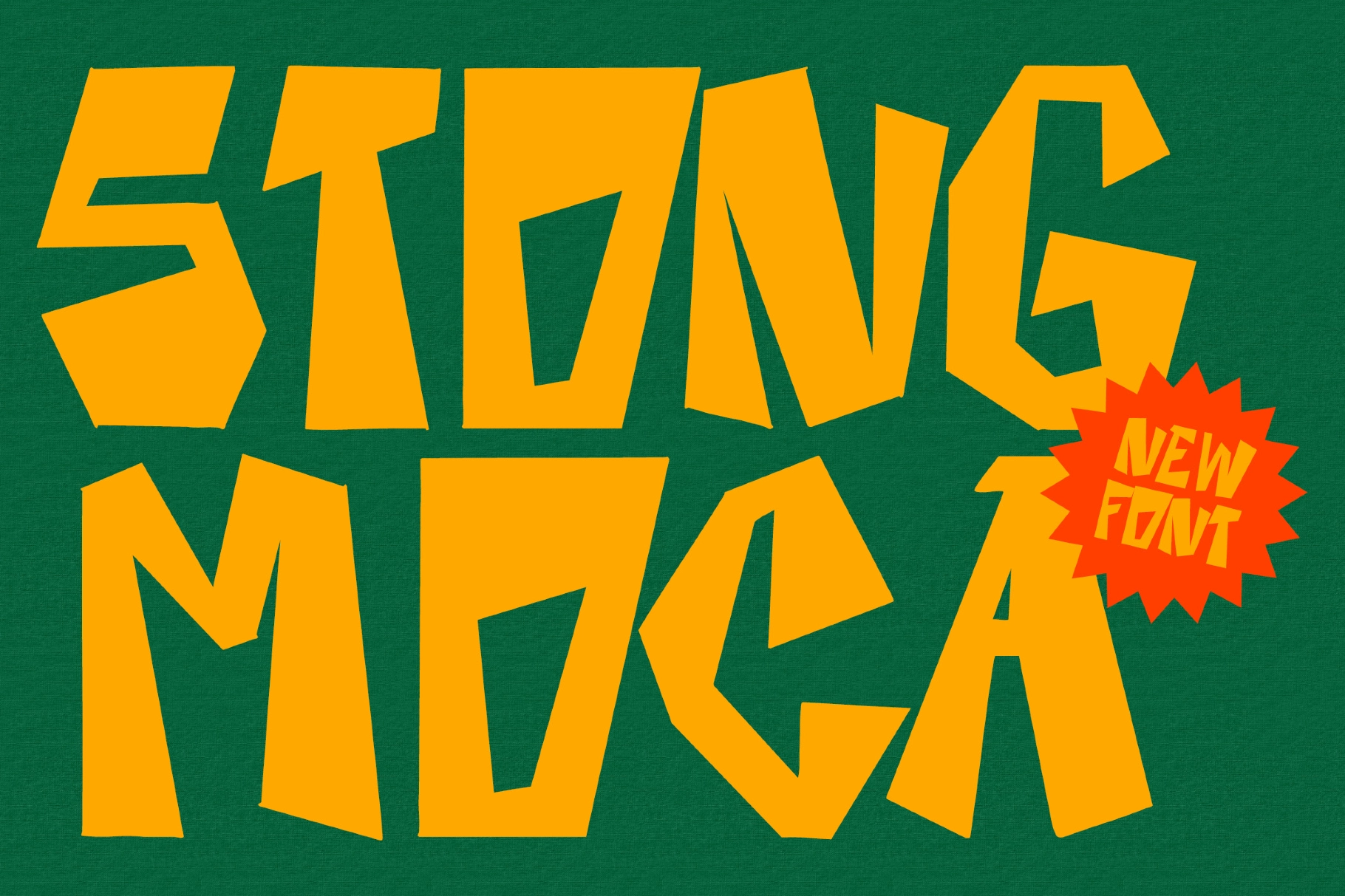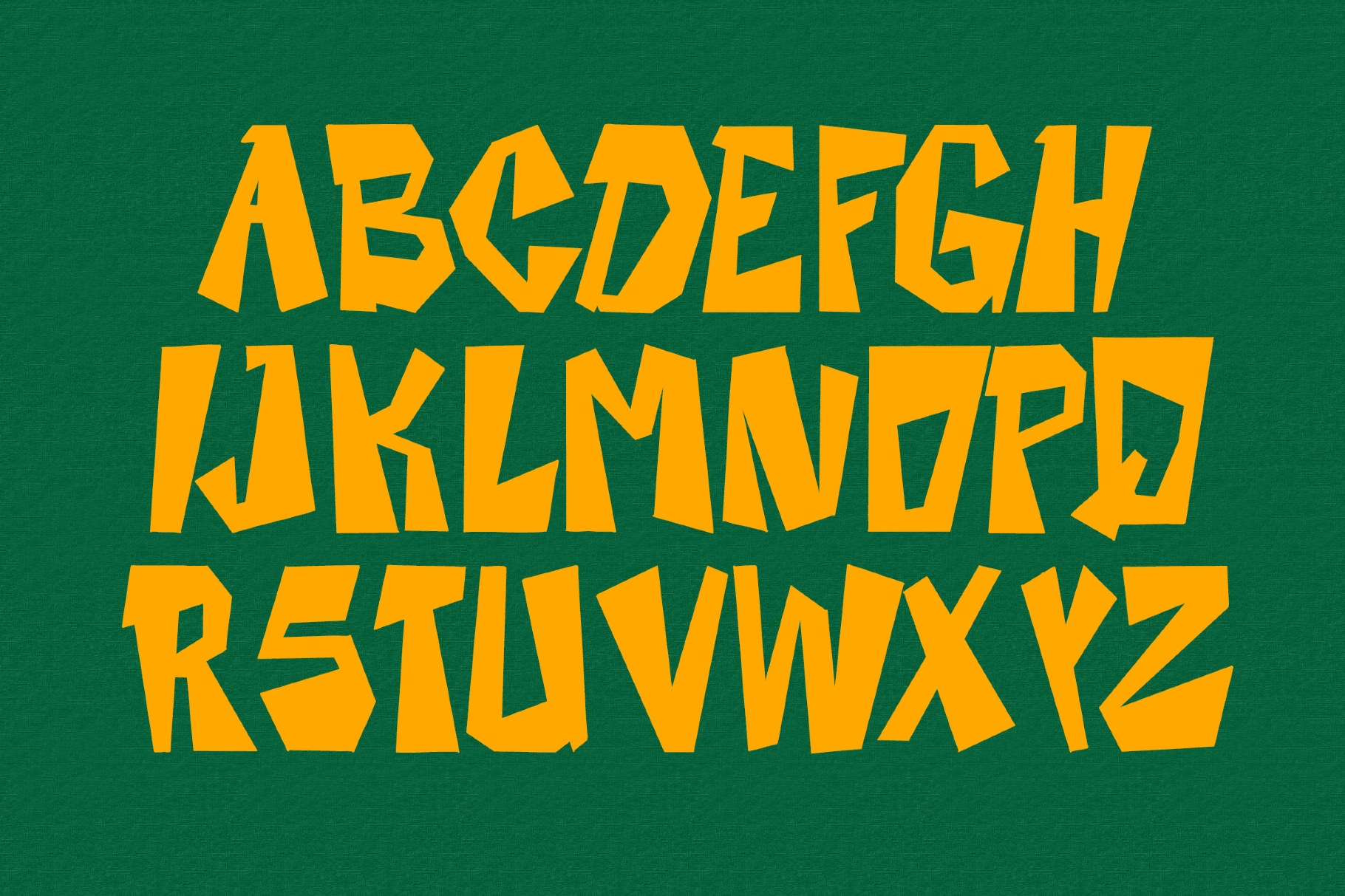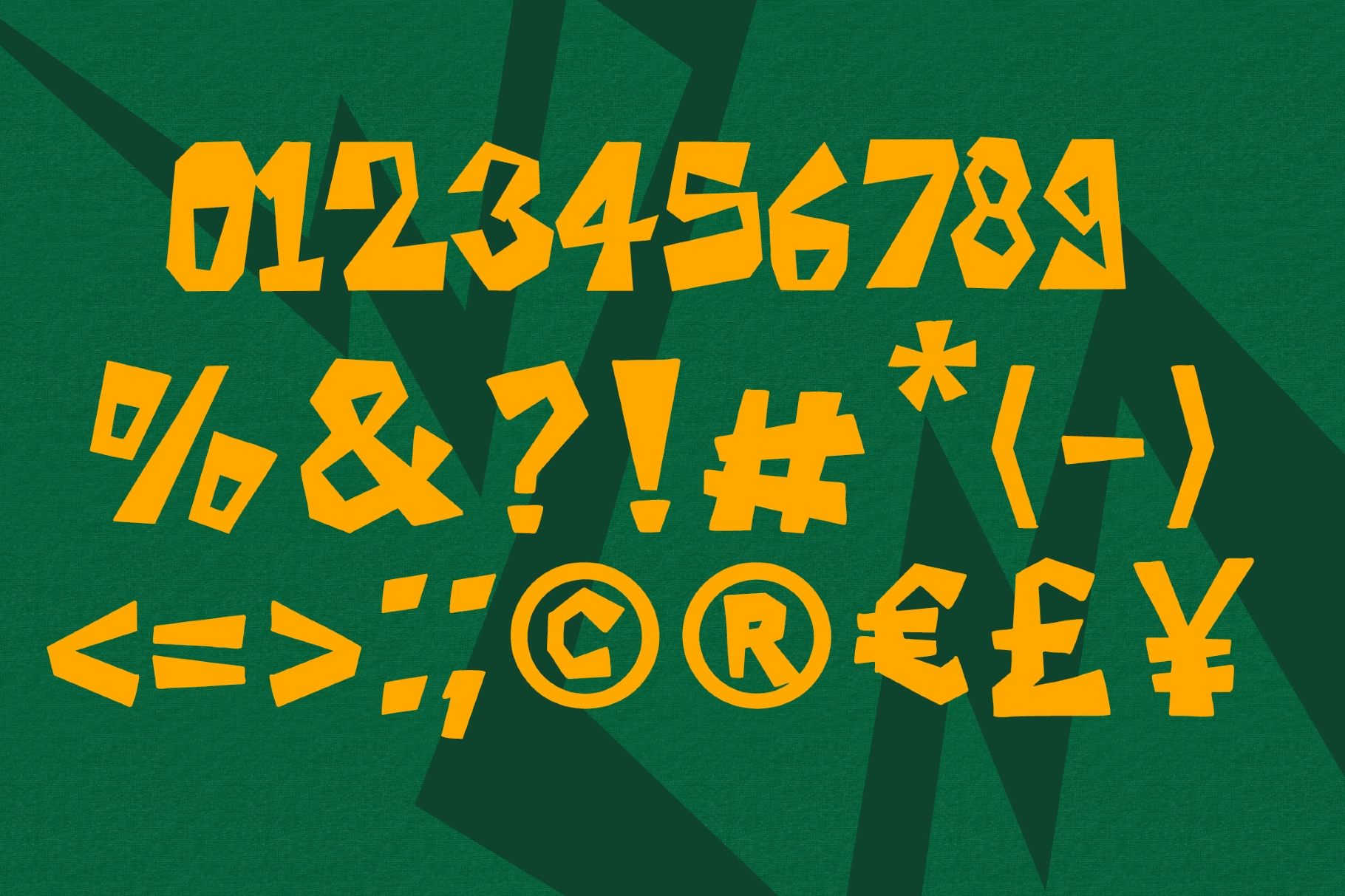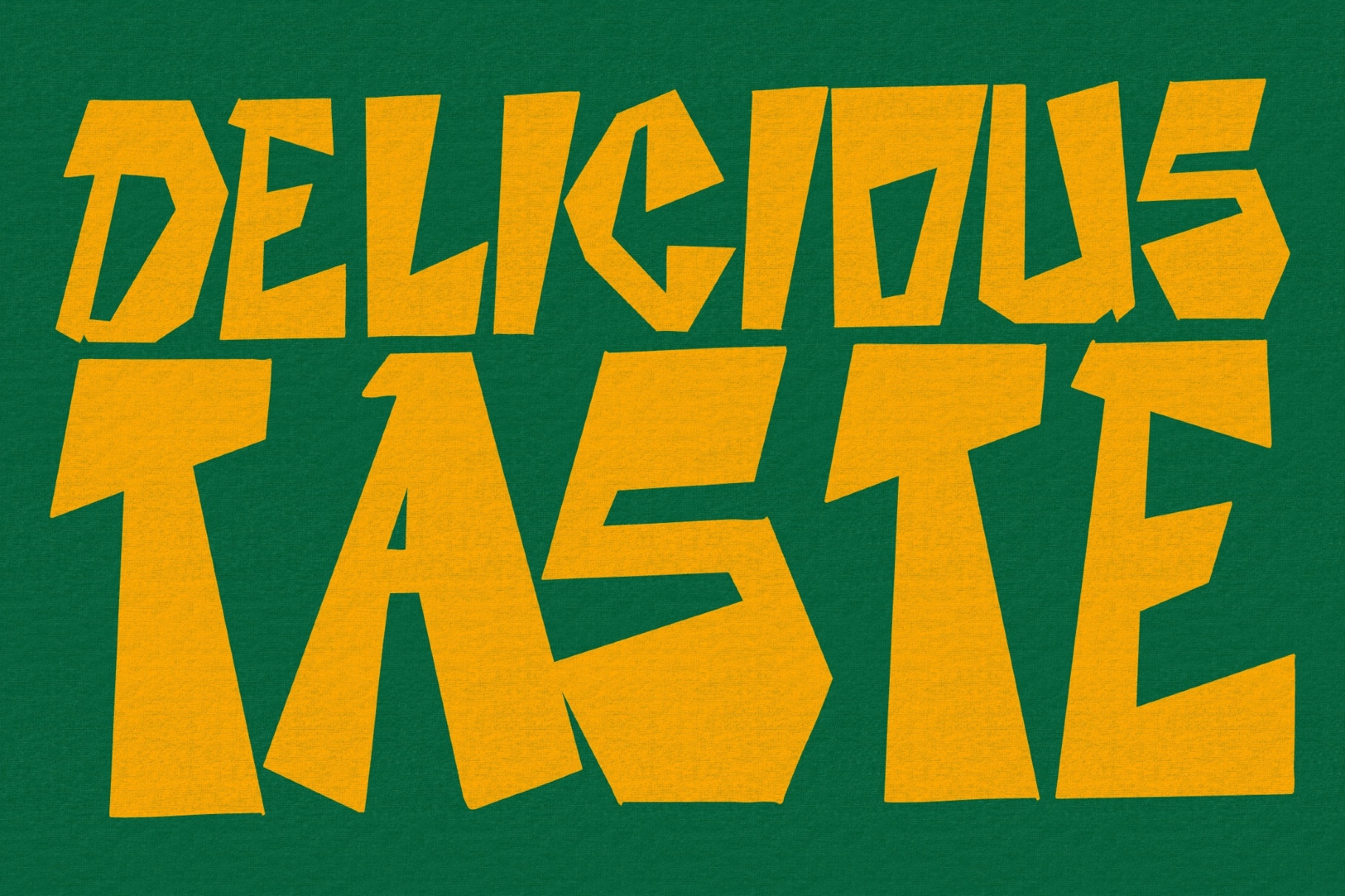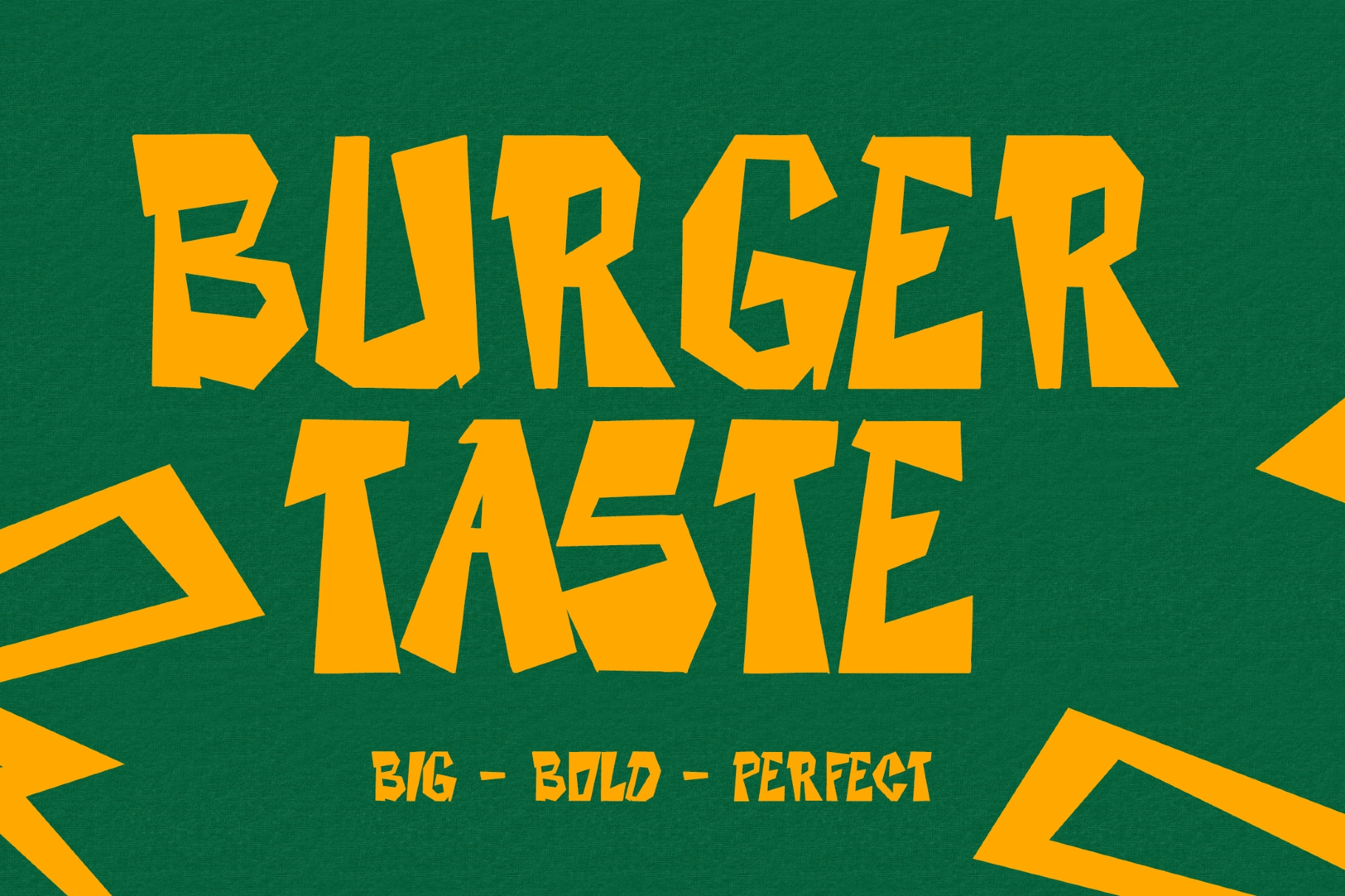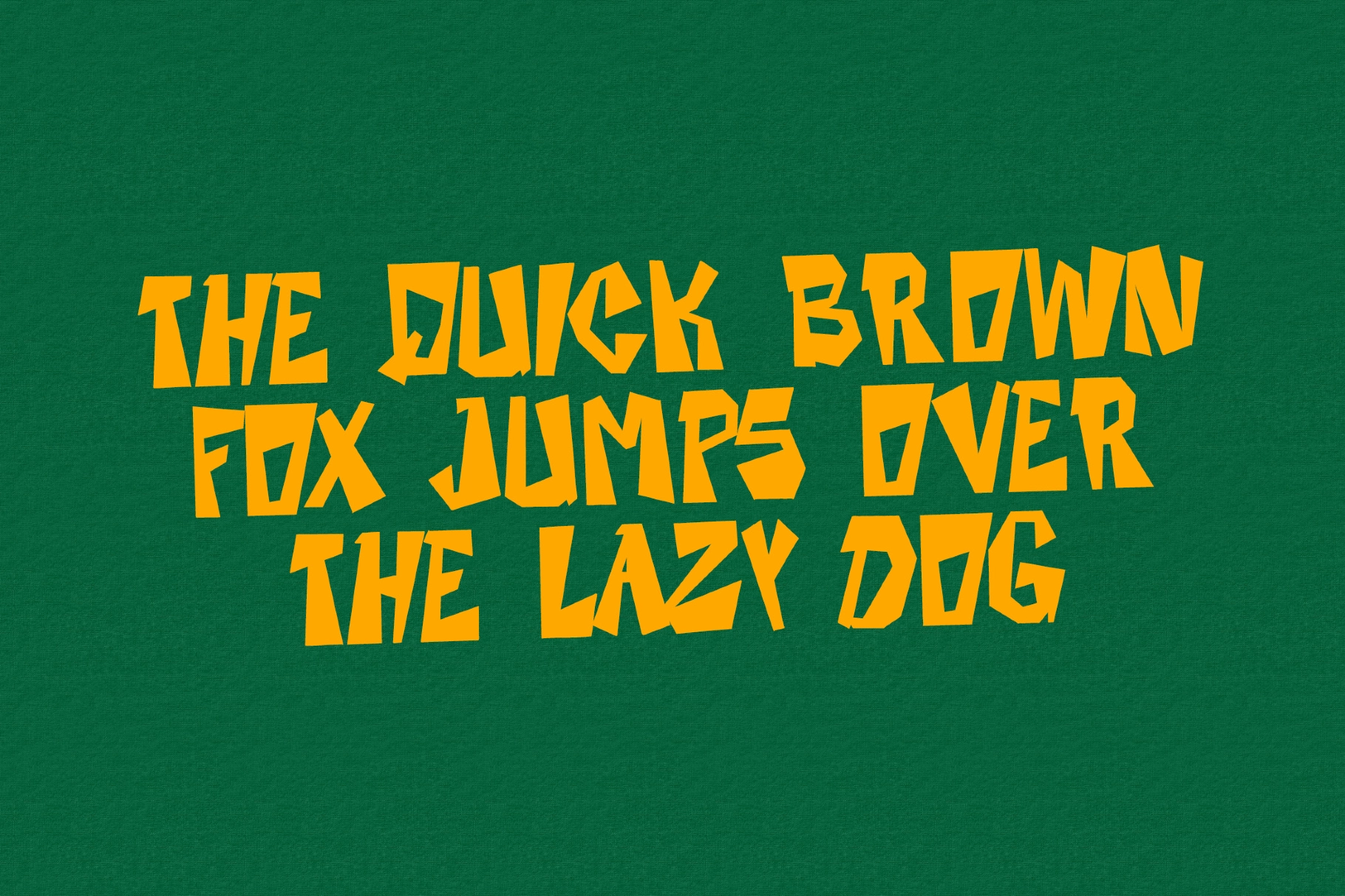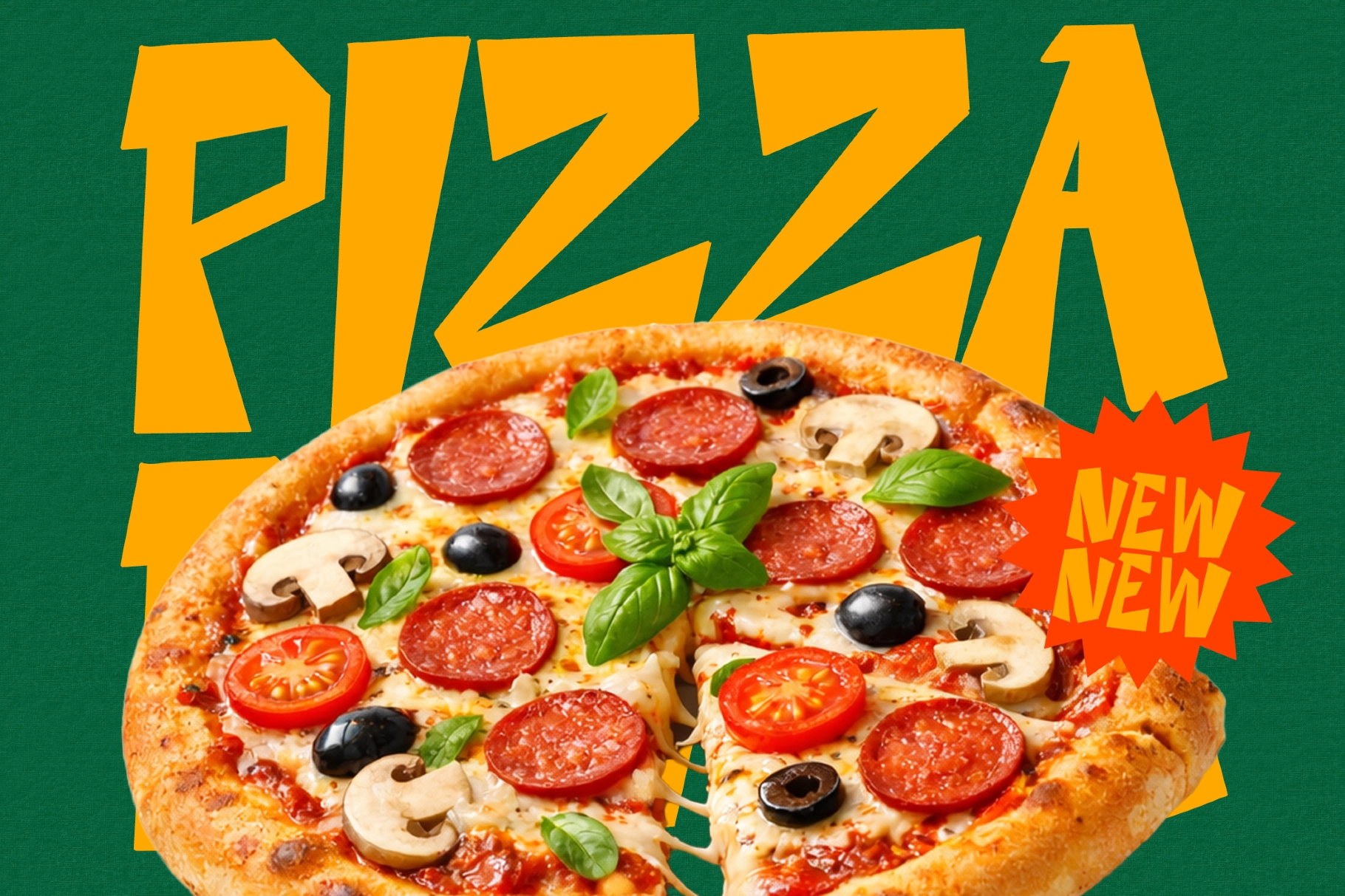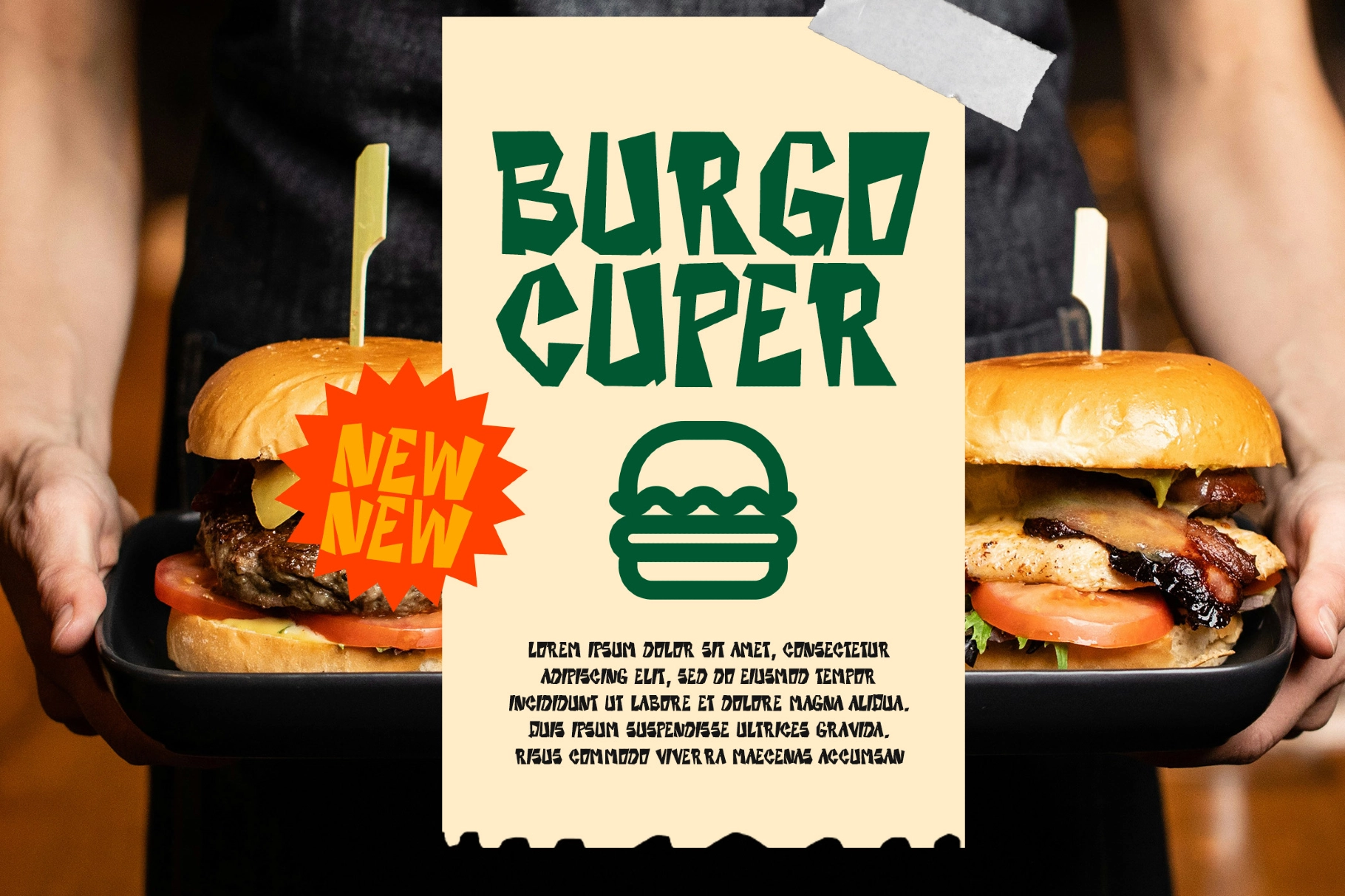
Stong Moca - Bold Display Font
Stong Moca
This display typeface is loud in the best possible way: chunky all-caps letters, jagged cuts, uneven angles, and a hand-shaped rhythm that looks carved, sliced, and slightly unhinged. The solid strokes give every word serious visual weight, while the irregular forms keep it playful and full of snack-counter chaos.
Use it for bakery branding, café logos, coffee shop signage, donut packaging, burger menus, food truck graphics, restaurant posters, social media promos, recipe blog headers, kitchen prints, label design, event flyers, and merch that needs to shout before the customer has even read the menu.